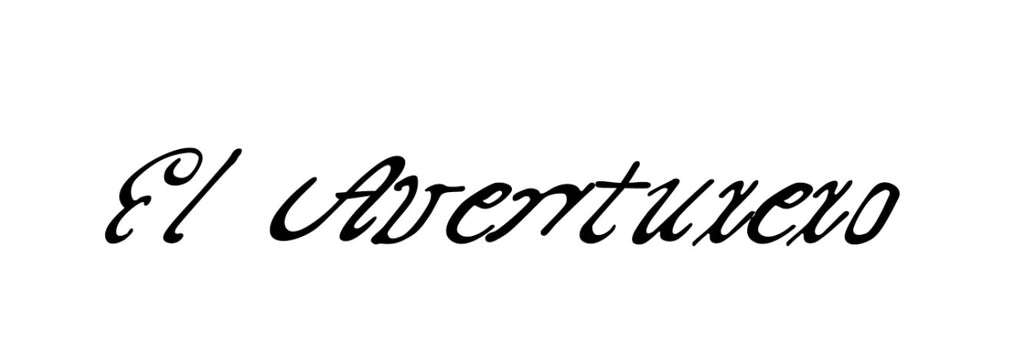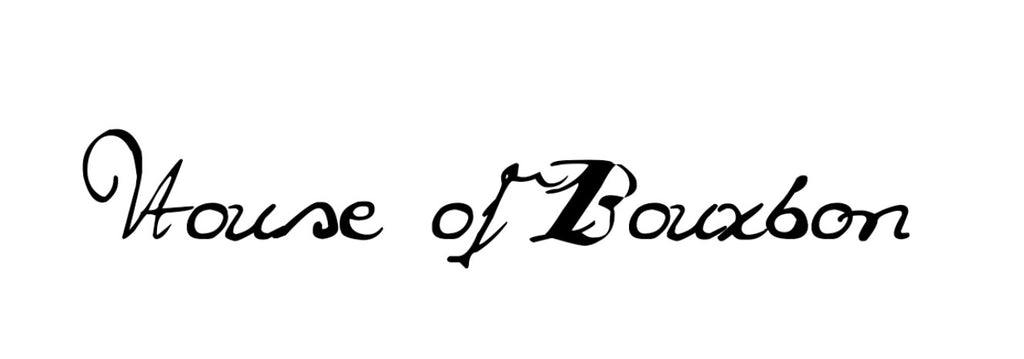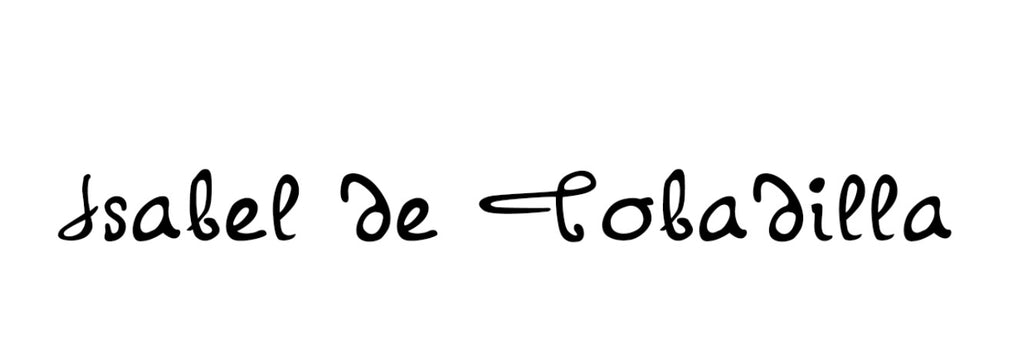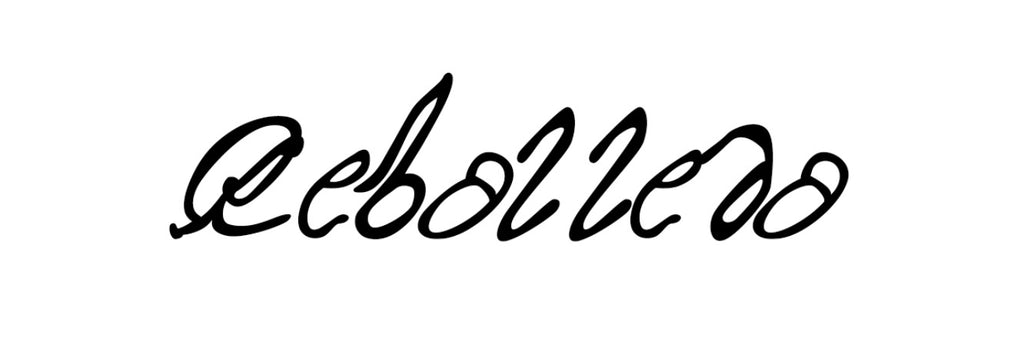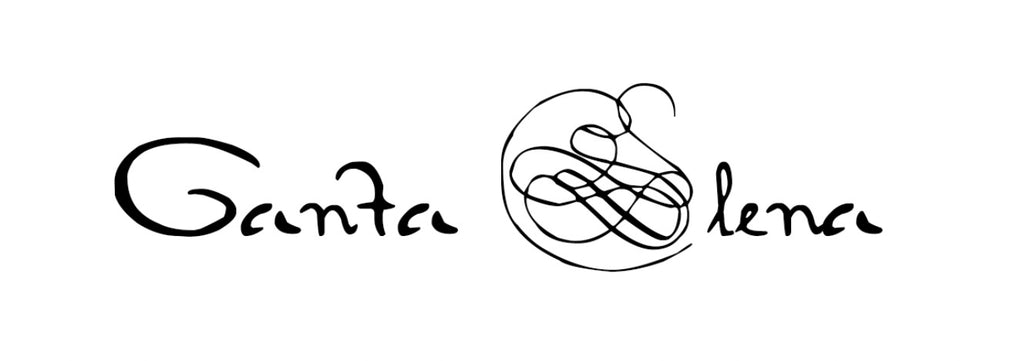
This collection of unique fonts has been created based on original Florida-related documents. All fonts have been digitally processed and programmed to resemble the historical records that inspired them. We invite you to “be the scribe.”